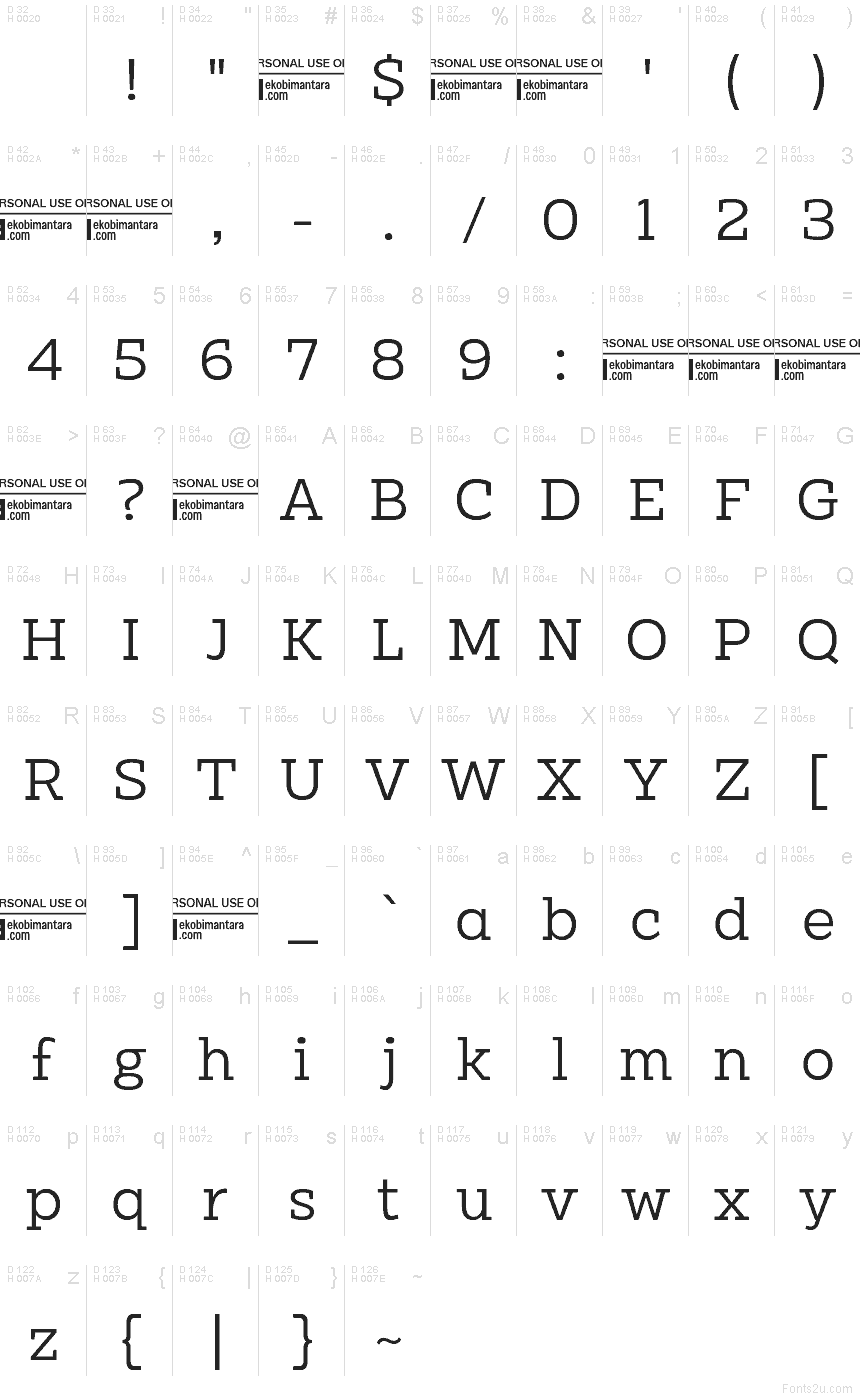
Clab Trial Light
Clab Light font by Eko Bimantara is a free light serif font that fixes a common gap: airy elegance that doesn’t feel fragile. Part of the Clab family, it keeps a steady rhythm with open counters, crisp terminals, and just enough contrast to sparkle without shimmering away at small sizes. The strokes feel clean and breathable, giving headlines lift while keeping paragraphs calm and readable.
Using Clab Light, your work shines on editorial titles, brand identities, beauty packaging, hero banners, magazine pull quotes, refined websites, and event invitations. Its generous spacing and gentle curves add sophistication without noise, making hierarchy effortless and layouts feel polished. Pair this free font with a neutral geometric sans for captions, and bump tracking slightly when you go big to accentuate its graceful flow.